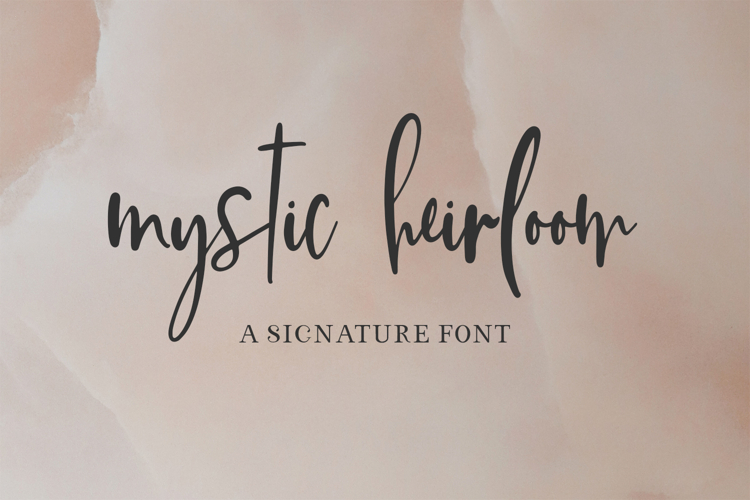
Introducing Mystic Heirloom Script, a handwritten signature style font. This chic, stylish font features a messy, casual look like handwriting, making it perfect for a signature style logo!
Mystic Heirloom is best for:
- logos + branding, like health + life coaches, beauty & cosmetic brands, party & event planner brands
- website design + website accents - think design blogs, travel blogs, fashion blogs, & more
- 26 lowercase alternates